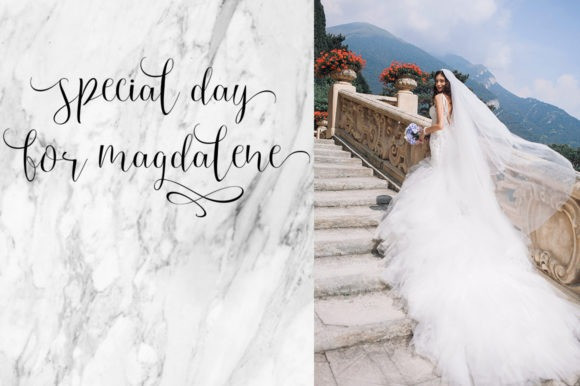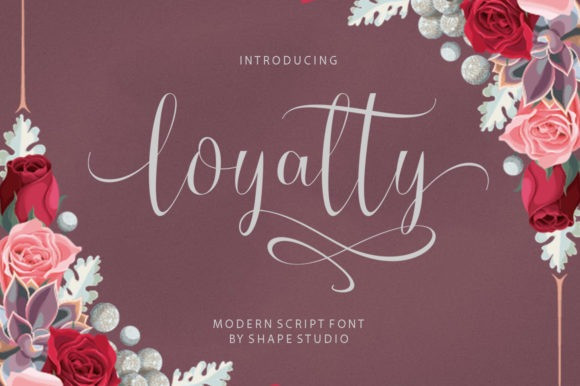
Loyalty Font
Say hello to Loyalty Script Font is a new modern script font with an irregular baseline. Fall in love with its trendy and feminine style!